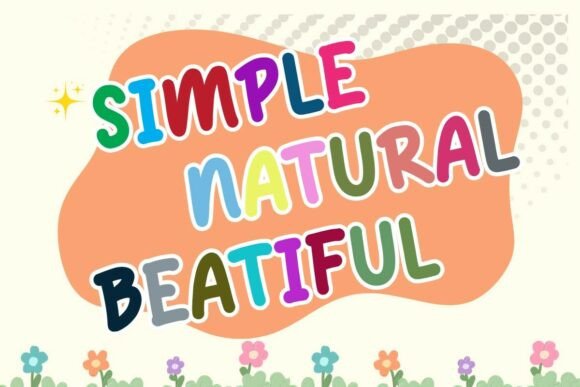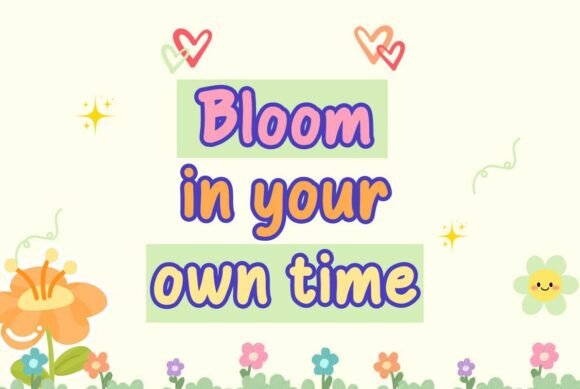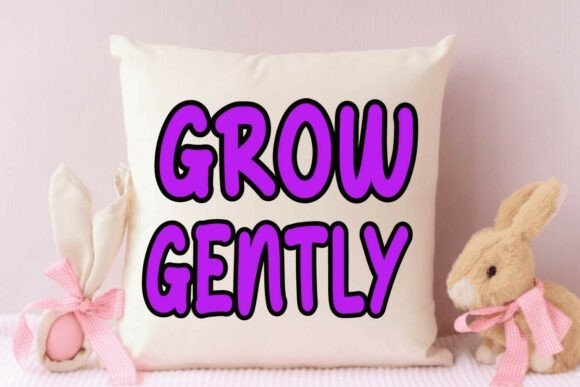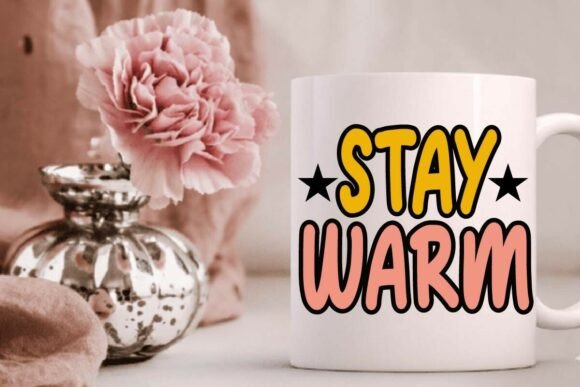
Introduction to Donat Pupur Font
Satisfy your craving for fun with the Donat Pupur font, a thick and tasty handwritten typeface that is as sweet as a sprinkle-covered treat.
This Donat Pupur typeface features bold, irregular lines that mimic the organic feel of handmade lettering, providing an instant dose of personality to your designs Ideal for food branding, restaurant menus, and quirky product packaging, the Donat Pupur font ensures your headlines are impossible to ignore.